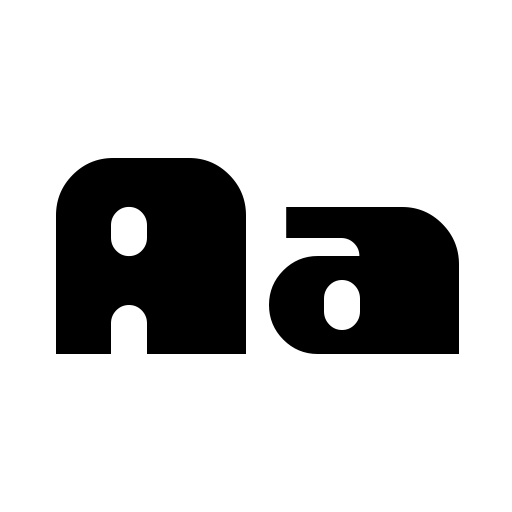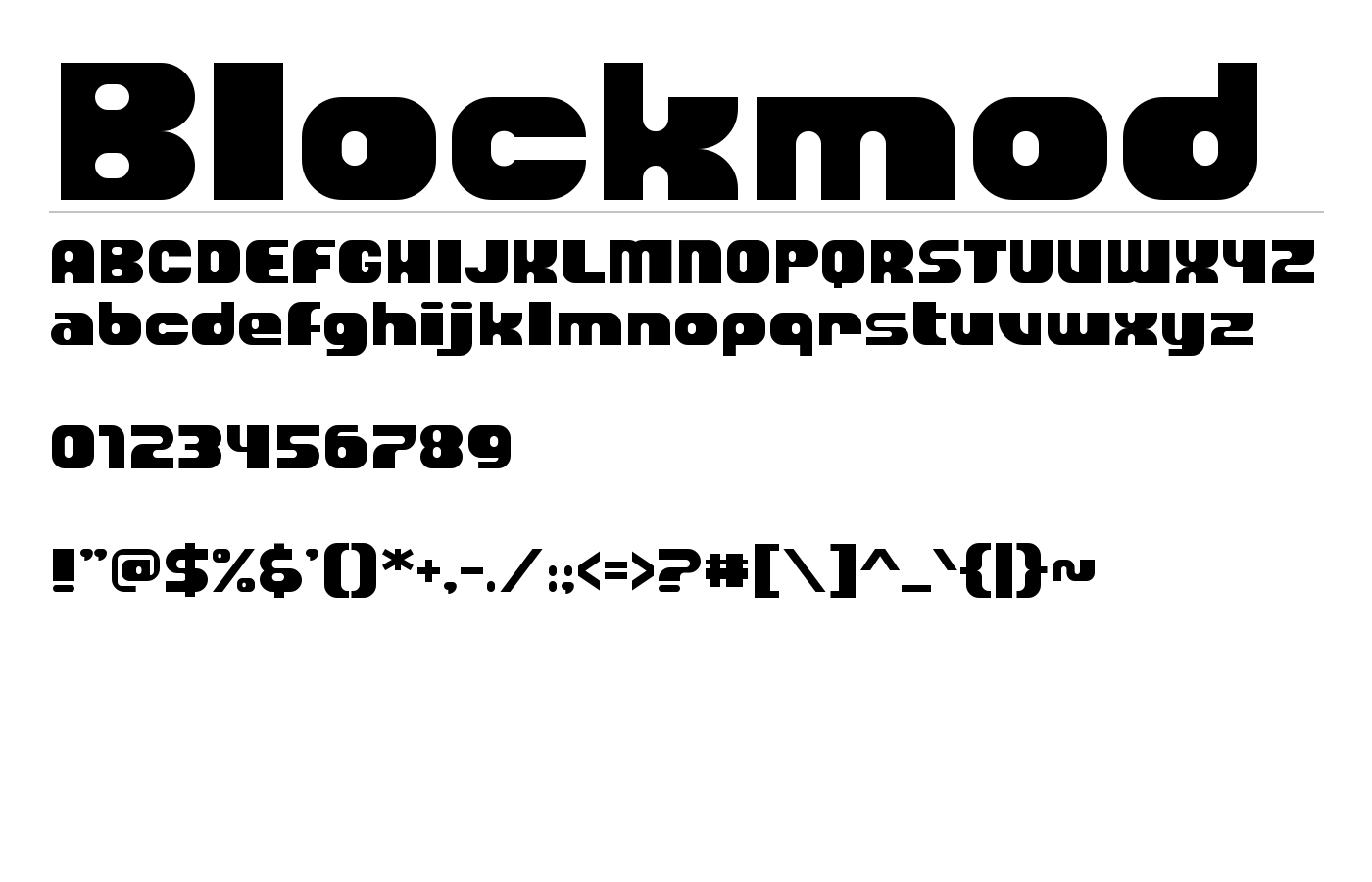
Blockmod is a bold, geometric sans serif font with a strong, modern feel, featuring thick, blocky letterforms with minimal contrast and rounded corners that add a friendly touch. Its unique shapes, such as the squared-off curves and distinctive uppercase letters, make it a great choice for eye-catching headlines, branding, and logos, particularly where a playful yet robust appearance is desired. This font works well in digital and print projects looking to convey confidence and modernity with a slightly futuristic vibe.
Blockmod Font
About Blockmod Font
| Font family | Blockmod Font |
| Designer | Sahirul Puguh |